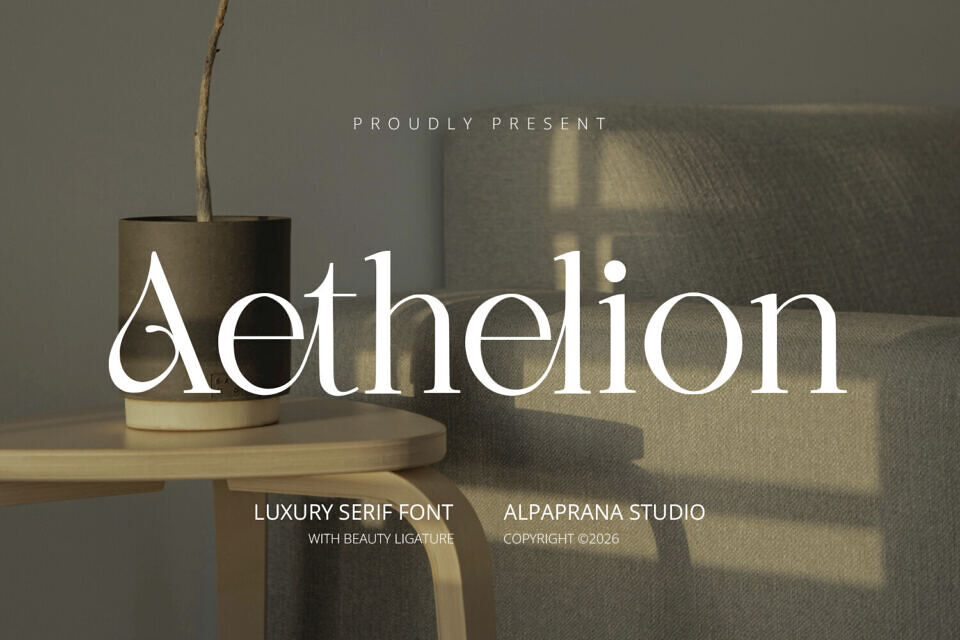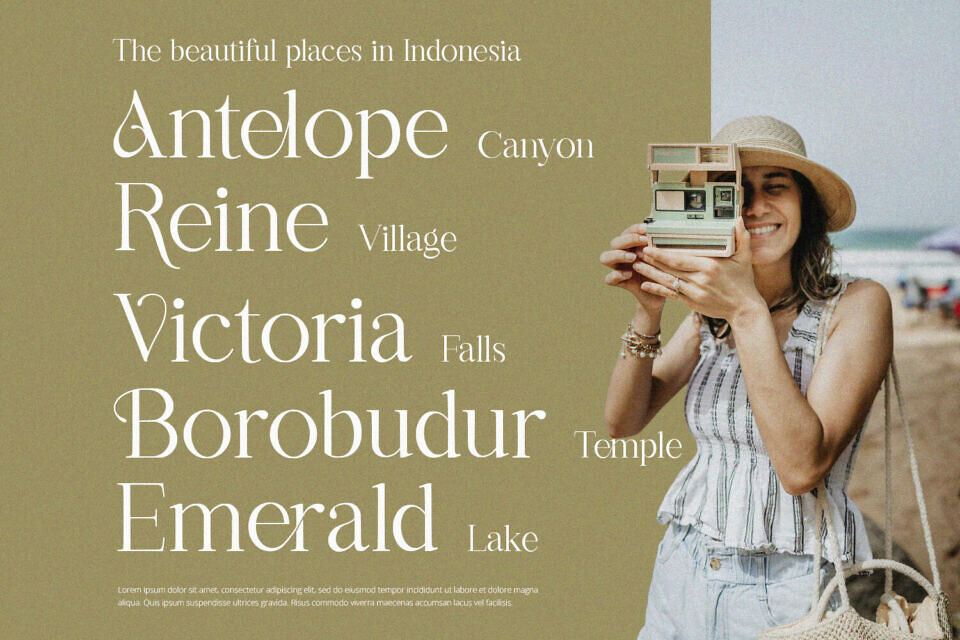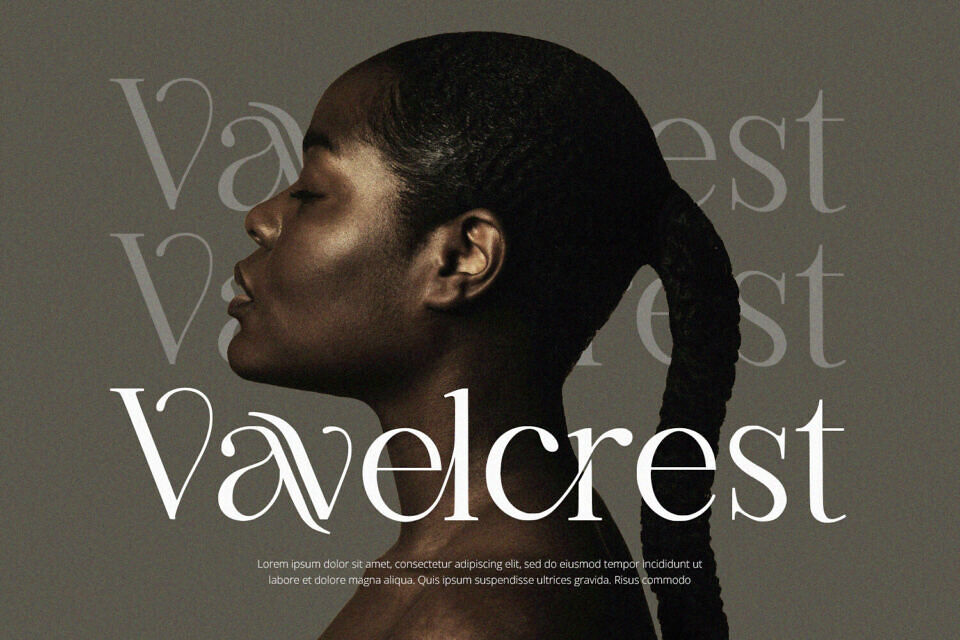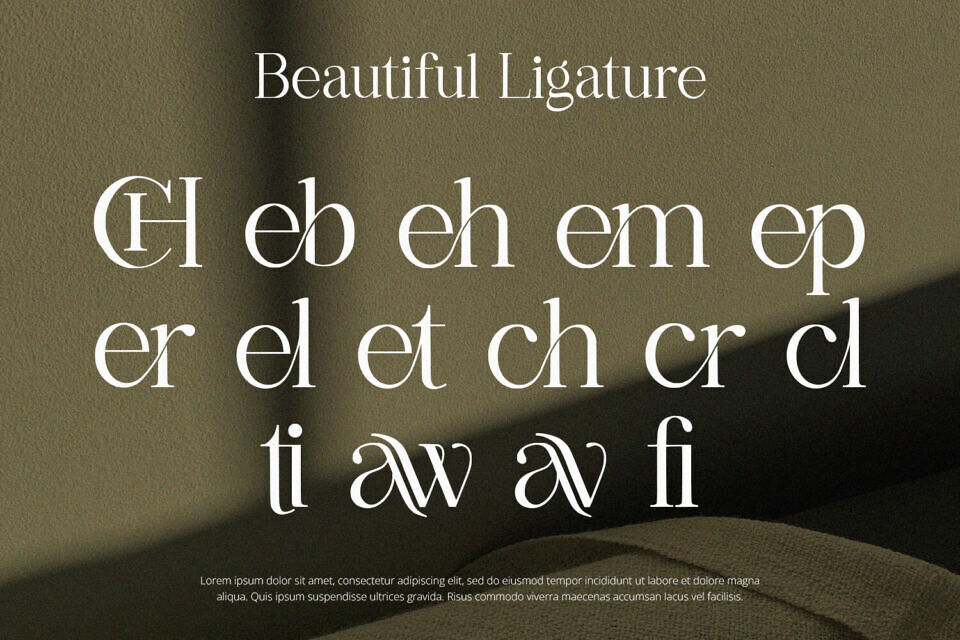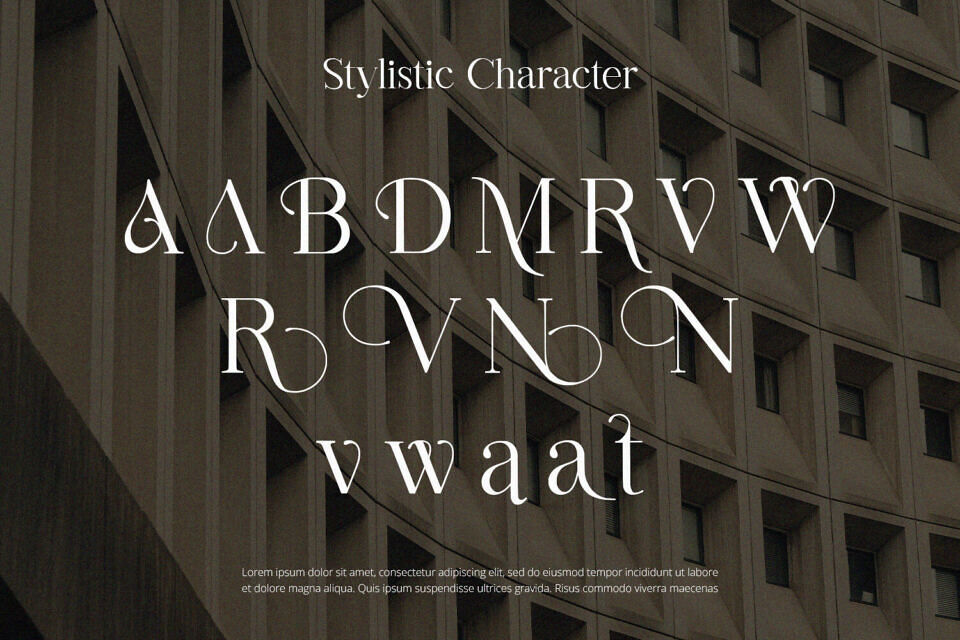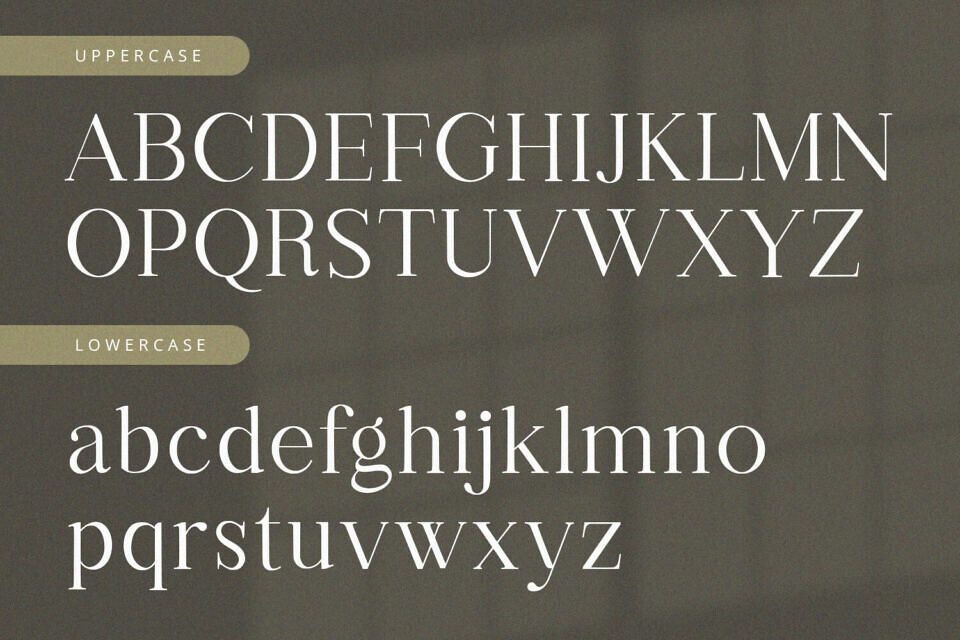
Aethelion Font
Aethelion is a modern serif font suitable for various design projects, including branding, logos, and lettering. It’s ideal for creating visually appealing graphics on clothing, posters, magazines, packaging, and more, making it a versatile choice for designers working on projects like book covers, photography, and event materials.